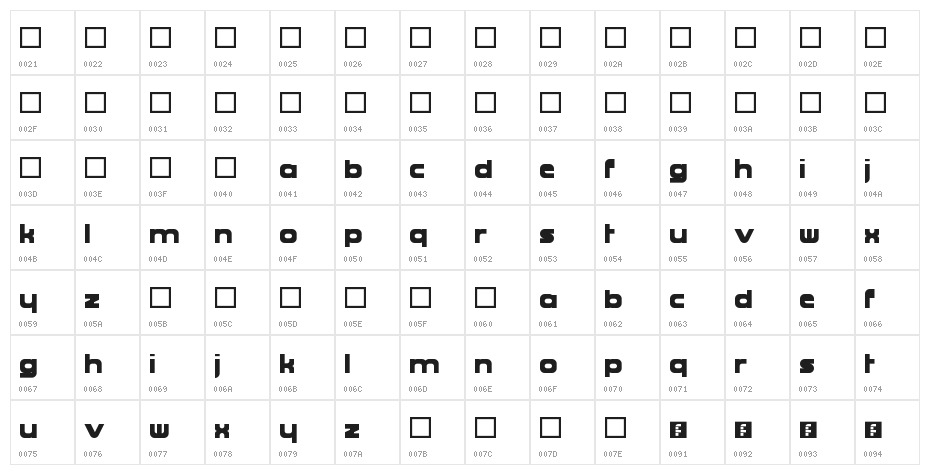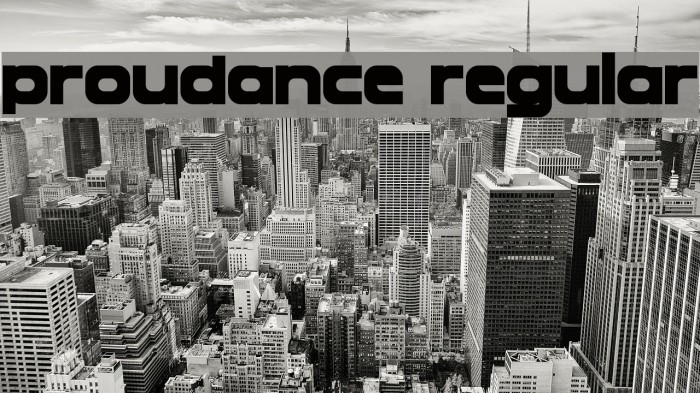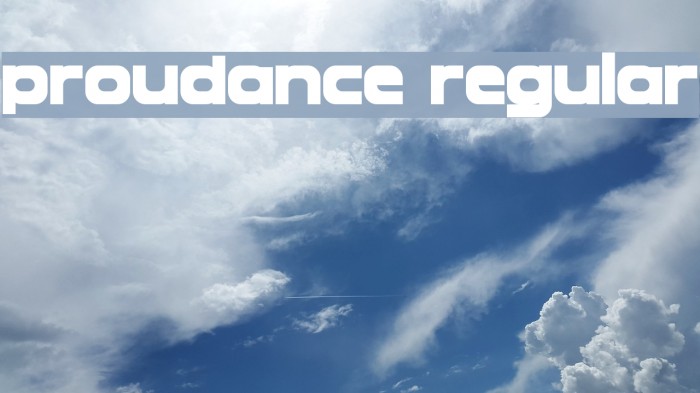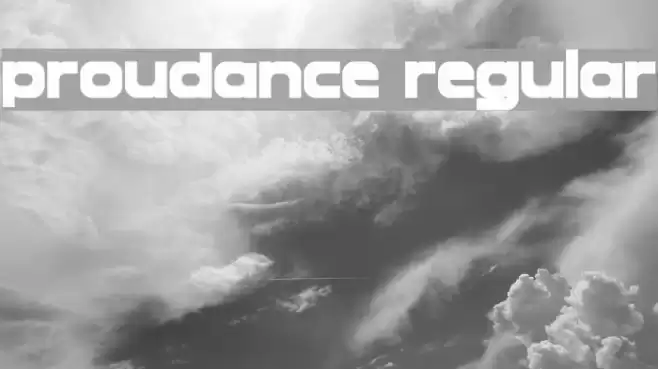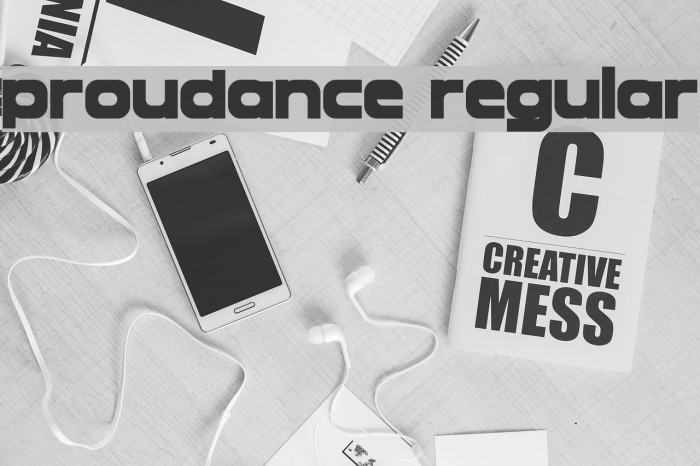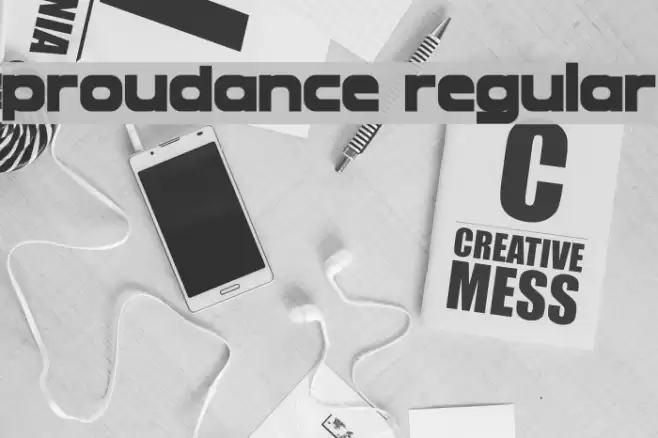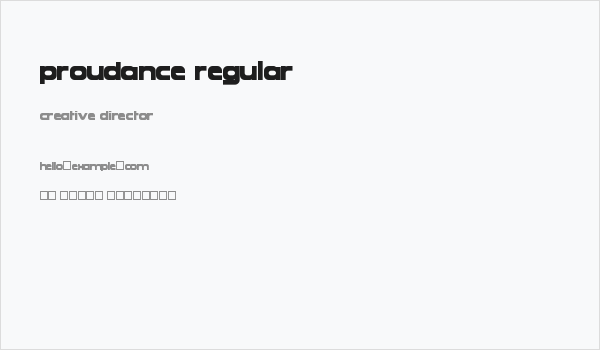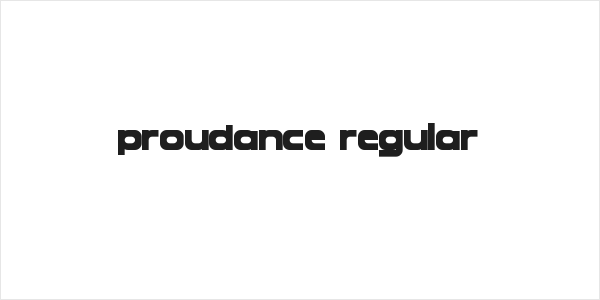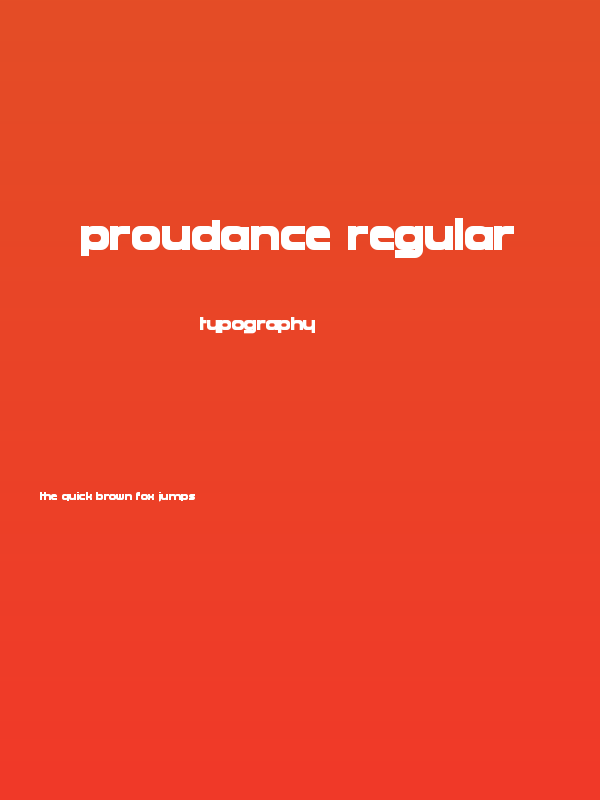
Proudance Regular Font
Proudance Regular Description
This font features a bold and modern design with a geometric structure. The characters are crafted with uniform thickness, giving it a strong and impactful appearance. The rounded edges soften the overall look, making it approachable yet assertive. The lowercase letters maintain a consistent height, contributing to a harmonious flow across text. The absence of serifs and the clean lines emphasize its contemporary style, suitable for various digital and print applications. The font's simplicity and clarity make it versatile for both headlines and branding purposes.